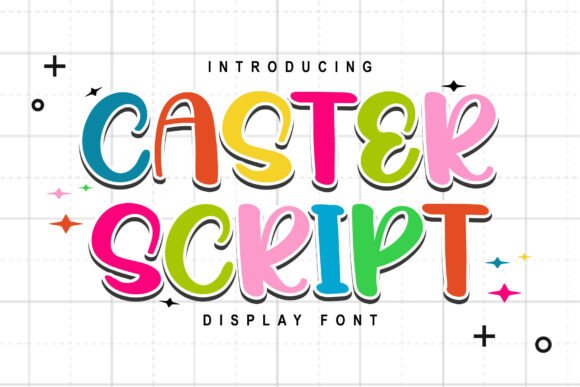
Caster Script Font: A Bold and Captivating Display Font
Caster Script is a bold and captivating display font that commands attention with its strong, distinctive letterforms. Designed to stand out, this powerful font blends creativity and impact, making it perfect for projects that need an eye-catching and memorable typographic style.
What Makes Caster Script Unique?
Caster Script’s uniqueness lies in its bold and distinctive letterforms, which are carefully crafted to make a lasting impression. The font’s strong and confident appearance makes it perfect for headlines, titles, and any other text that needs to stand out.
One of the key features that sets Caster Script apart is its unique blend of creativity and impact. The font’s designer has carefully balanced the need for attention-grabbing typography with the importance of legibility, resulting in a font that is both bold and easy to read.
The Benefits of Using Caster Script
So why choose Caster Script for your next project? Here are just a few benefits of using this powerful display font:
- Attention-grabbing typography: Caster Script is designed to stand out, making it perfect for projects that need to grab the viewer’s attention.
- Memorable and impactful: The font’s bold and distinctive letterforms make it easy to remember, ensuring that your message stays with your audience long after they’ve seen it.
- Versatile: Caster Script can be used in a wide range of projects, from branding and posters to digital designs and more.
- Ease of use: Despite its bold appearance, Caster Script is surprisingly easy to read, making it perfect for use in a variety of contexts.
How to Use Caster Script in Your Designs
Caster Script is a versatile font that can be used in a wide range of design projects. Here are a few ideas to get you started:
- Branding: Use Caster Script to create bold and memorable logos, taglines, and marketing materials that reflect your brand’s personality.
- Posters and flyers: Add a touch of drama and impact to your posters and flyers with Caster Script’s bold and attention-grabbing typography.
- Digital designs: Use Caster Script to add a bold and eye-catching touch to your website, social media graphics, and other digital designs.
Tips for Getting the Most Out of Caster Script
Here are a few tips for getting the most out of Caster Script:
- Use it sparingly: While Caster Script is a powerful font, it can be overwhelming if used too much. Use it sparingly to add emphasis and impact to your designs.
- Experiment with colors and textures: Caster Script looks great in a variety of colors and textures, so don’t be afraid to experiment and find the look that works best for your project.
- Pair it with other fonts: Caster Script can be paired with a variety of other fonts to create a unique and interesting typographic style.
The Design Process Behind Caster Script
Caster Script was designed with one goal in mind: to create a bold and captivating display font that commands attention. The design process involved a combination of creativity, experimentation, and attention to detail.
The font’s designer carefully crafted each letterform to ensure that it was both bold and legible, with a focus on creating a unique and memorable typographic style.
Caster Script is a bold and captivating display font that is perfect for projects that need an eye-catching and memorable typographic style. With its strong and distinctive letterforms, this powerful font blends creativity and impact, making it a great choice for branding, posters, digital designs, and more.